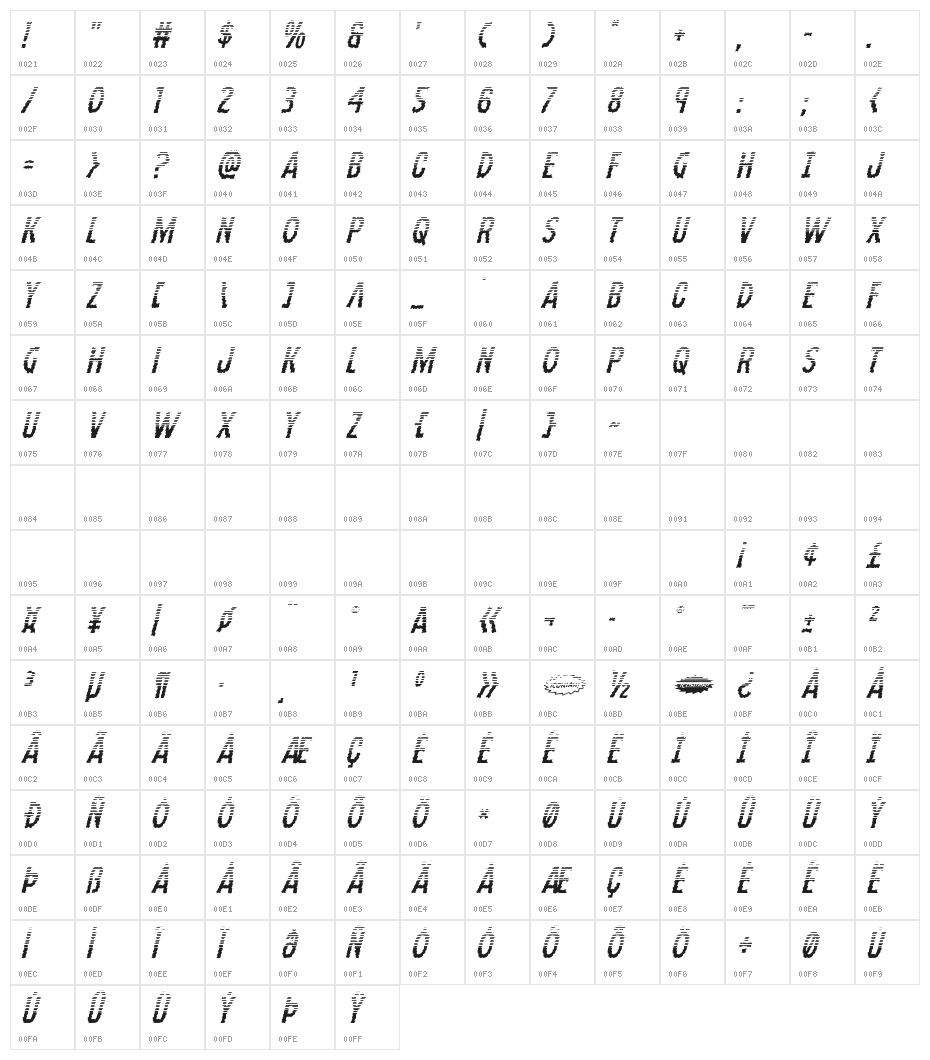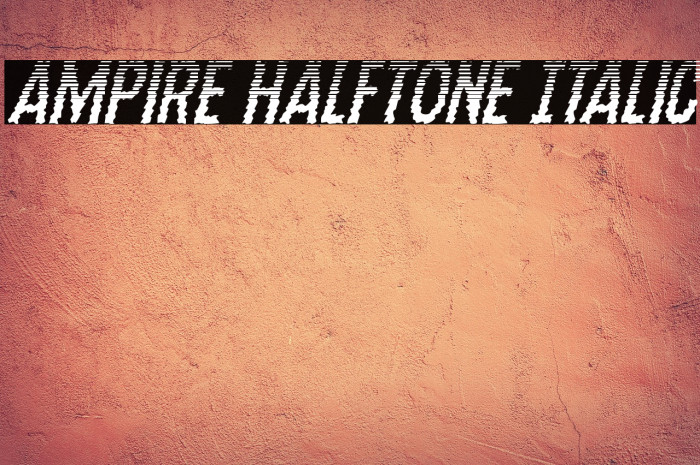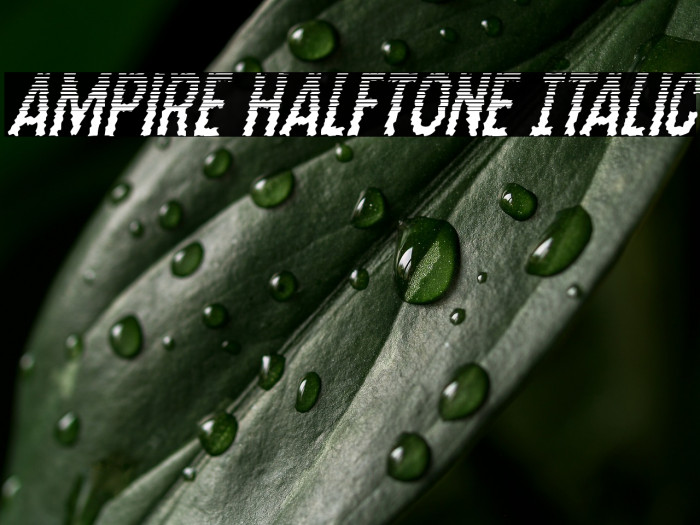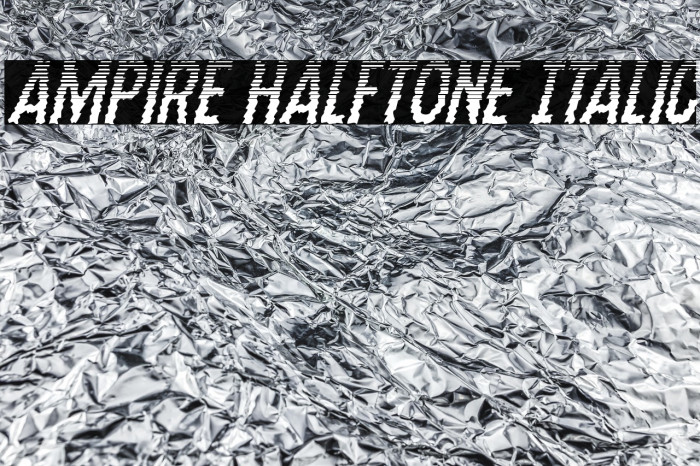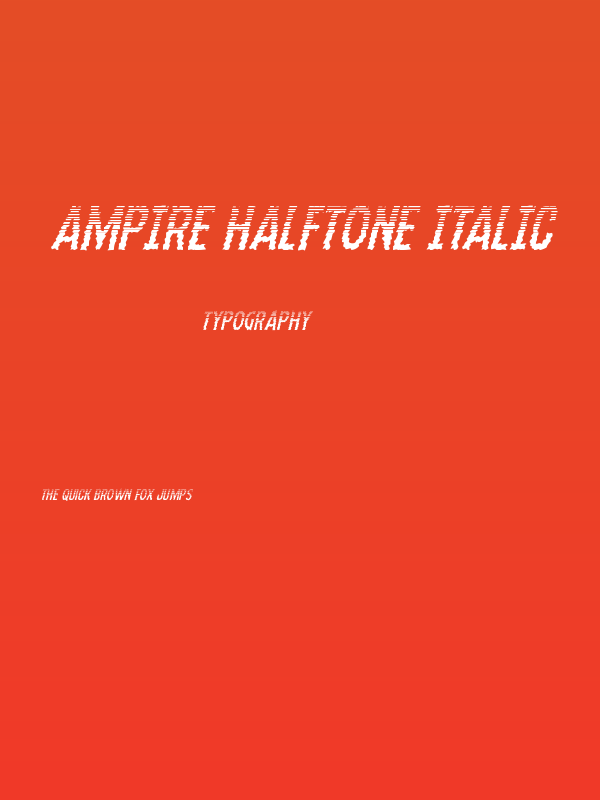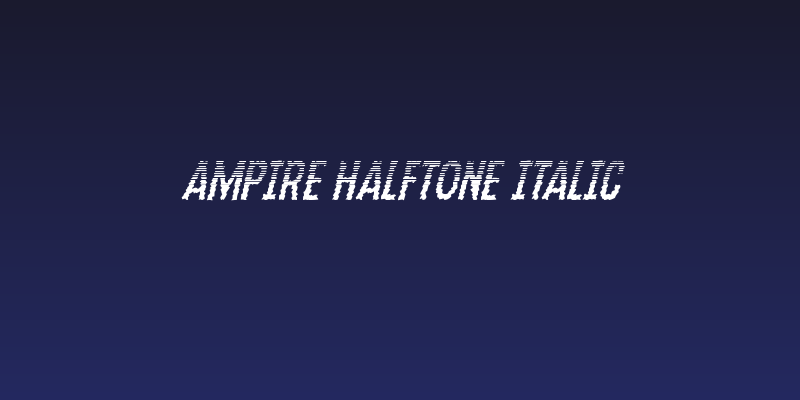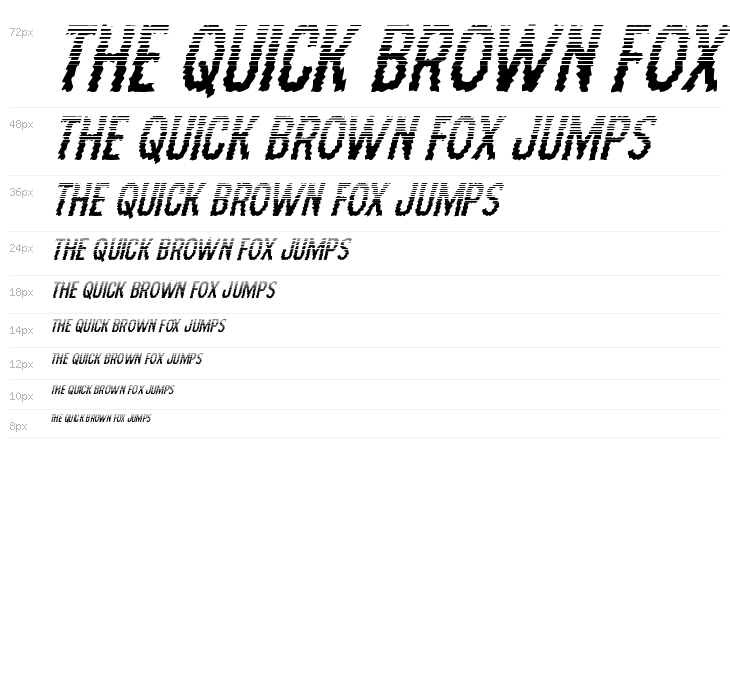
Ampire Halftone Italic Font
Ampire Halftone Italic Description
This font features a bold and dynamic style with a halftone effect that gives it a unique, textured appearance. The italicized slant adds a sense of motion and energy, making it stand out in any design. The uppercase and lowercase letters maintain a consistent style, with sharp edges and a slightly condensed form. The numbers and special characters are designed to match the overall aesthetic, ensuring a cohesive look across all text elements. This font is ideal for projects that require a bold statement or a vintage-inspired look with a modern twist.
| Overall Style | Modern, Vintage |
| Proposed Projects | Ideal for posters, album covers, branding materials, and any project needing a bold, vintage-modern aesthetic. |